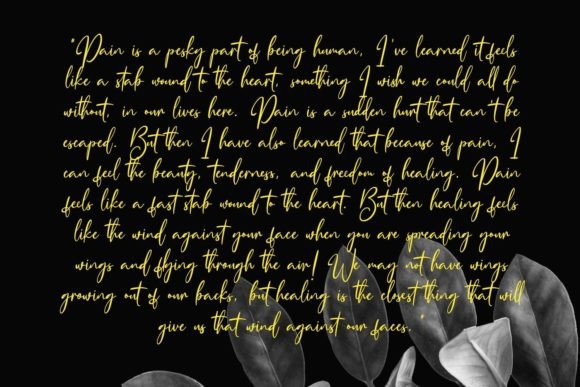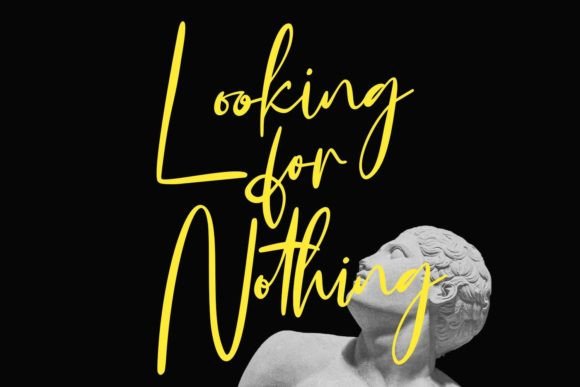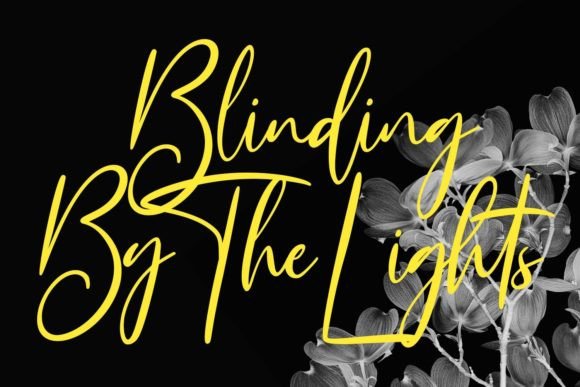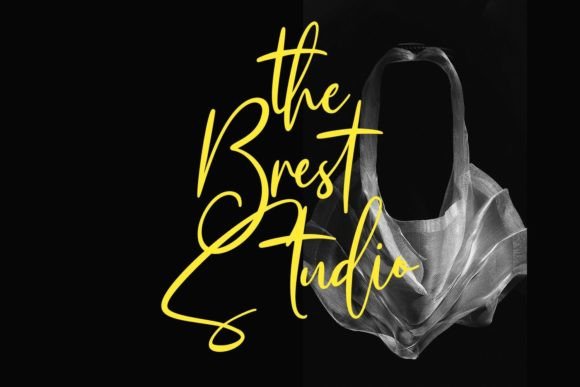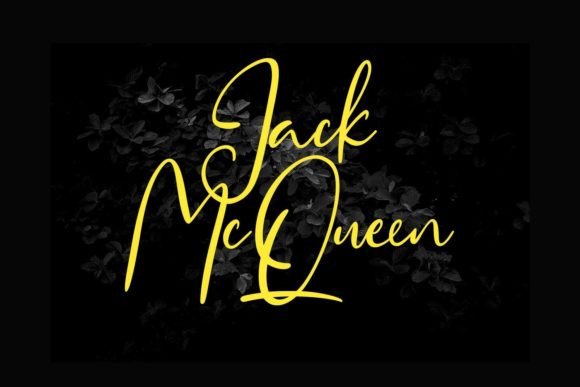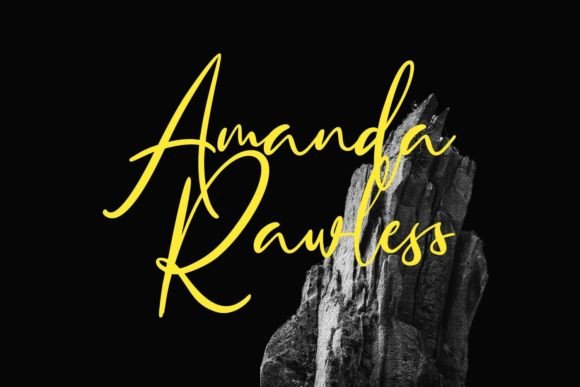
Introduction to Huffington Font
You know that feeling when you’re brainstorming ideas for a creative project and you just can’t seem to find the right design element to bring it all together? You’ve got a clear vision in your mind, but it’s just missing that special something to make it truly shine. That’s where the Huffington Font comes in – a high-quality, signature script font that’s about to revolutionize the way you approach your design projects.
As a valuable resource for designers, the Huffington Font offers an unparalleled level of versatility, effortlessly elevating your designs to the highest level. With its elegant yet casual feel, this font is perfect for a wide range of creative endeavors, from stunning graphics to captivating typography. Whether you’re working on a personal project or collaborating with a team, the Huffington Font is sure to be a game-changer.
Key Features of Huffington Font
- High-quality typography with a modern, clean design, making it perfect for any creative project.
- Includes a comprehensive character set, including uppercase and lowercase letters, numbers, and punctuation marks.
Honest Review: Huffington Font
I recently stumbled upon the Huffington Font and I must say it’s an interesting addition to my design resource library. The font is designed to provide a modern and elegant look, making it perfect for creative projects that require a touch of sophistication.
- Wide range of font sizes and styles available
- Supports various languages
However, I did encounter some limitations: ⚠️ limited customization options, ⚠️ not suitable for bold or dramatic designs, and ⚠️ may require additional adjustments for optimal display on different screens.
Overall, I think the Huffington Font is a great addition to any design library. While it may not be perfect, it’s a solid choice for projects that require a clean and elegant look. Just be aware of its limitations and adjust accordingly.
To get the most out of the Huffington Font, use it on a transparent background to create a clean and modern design. You can also combine it with other design elements to create a unique and eye-catching visual effect.
The Huffington Font is ideal for use in:
- Marketing materials and advertisements
- Personal projects and creative expressions